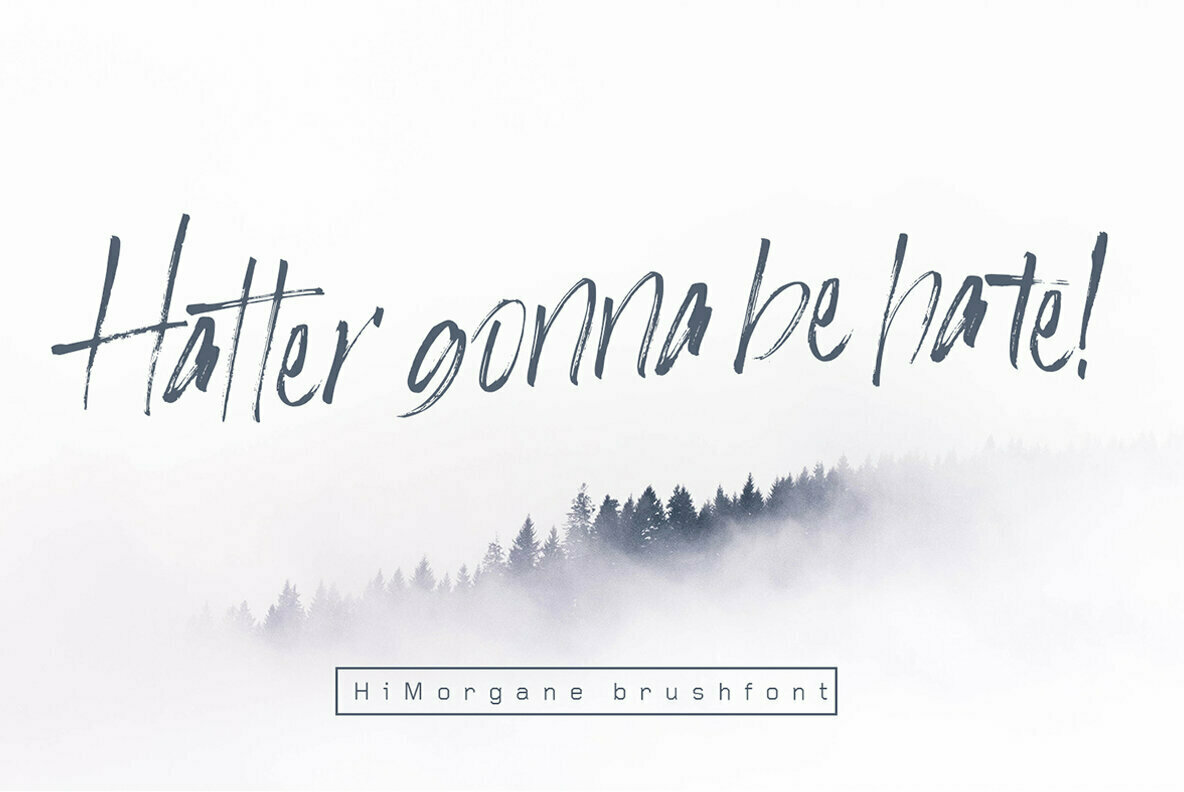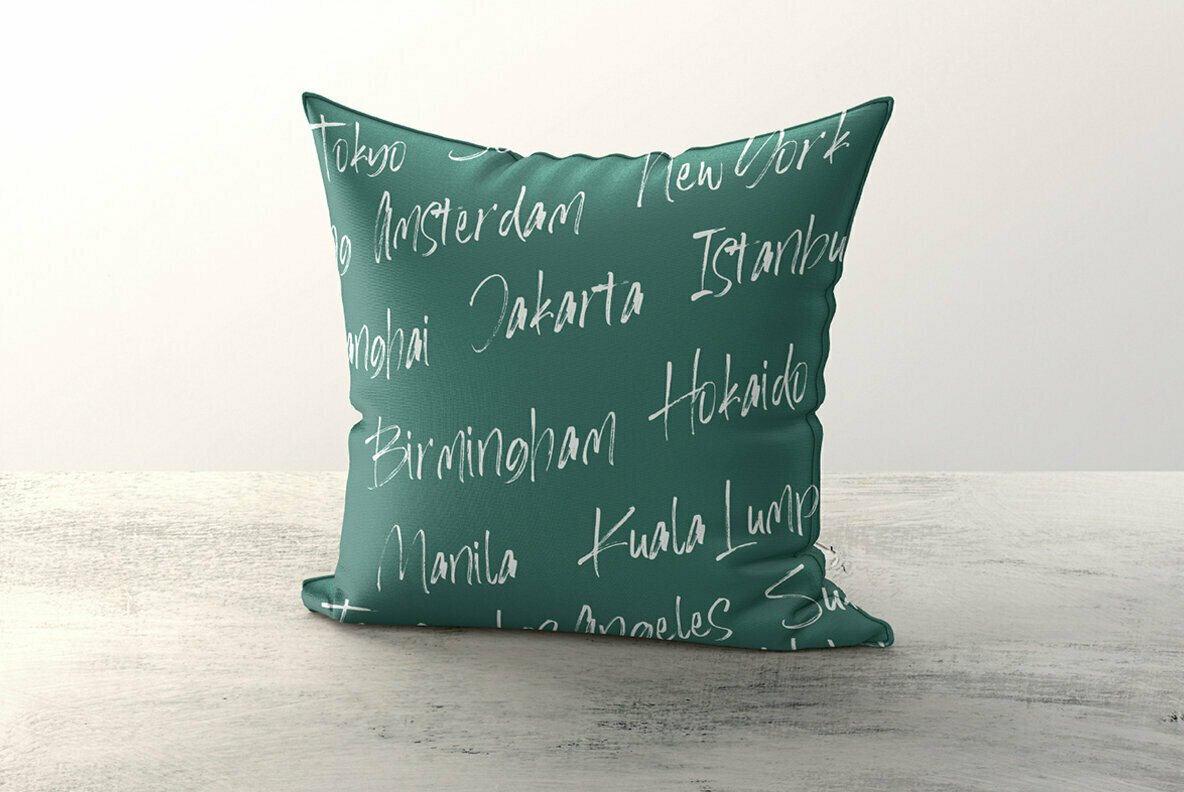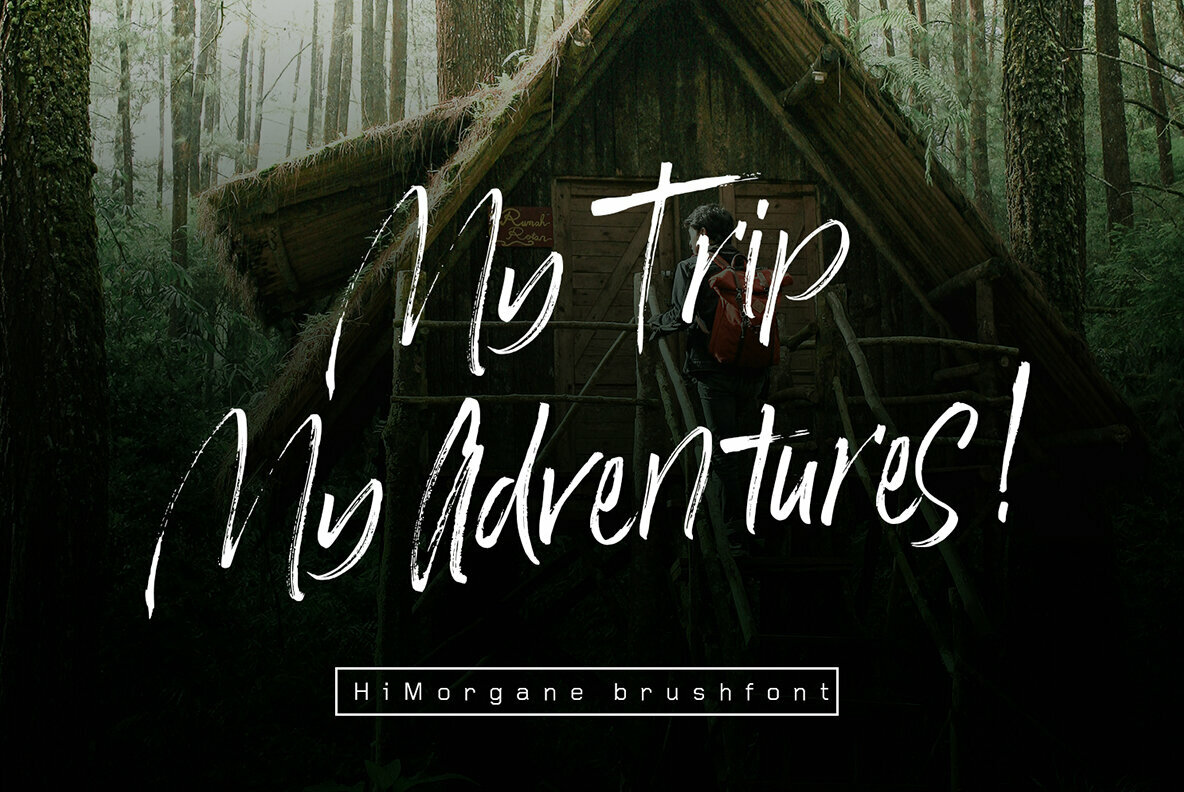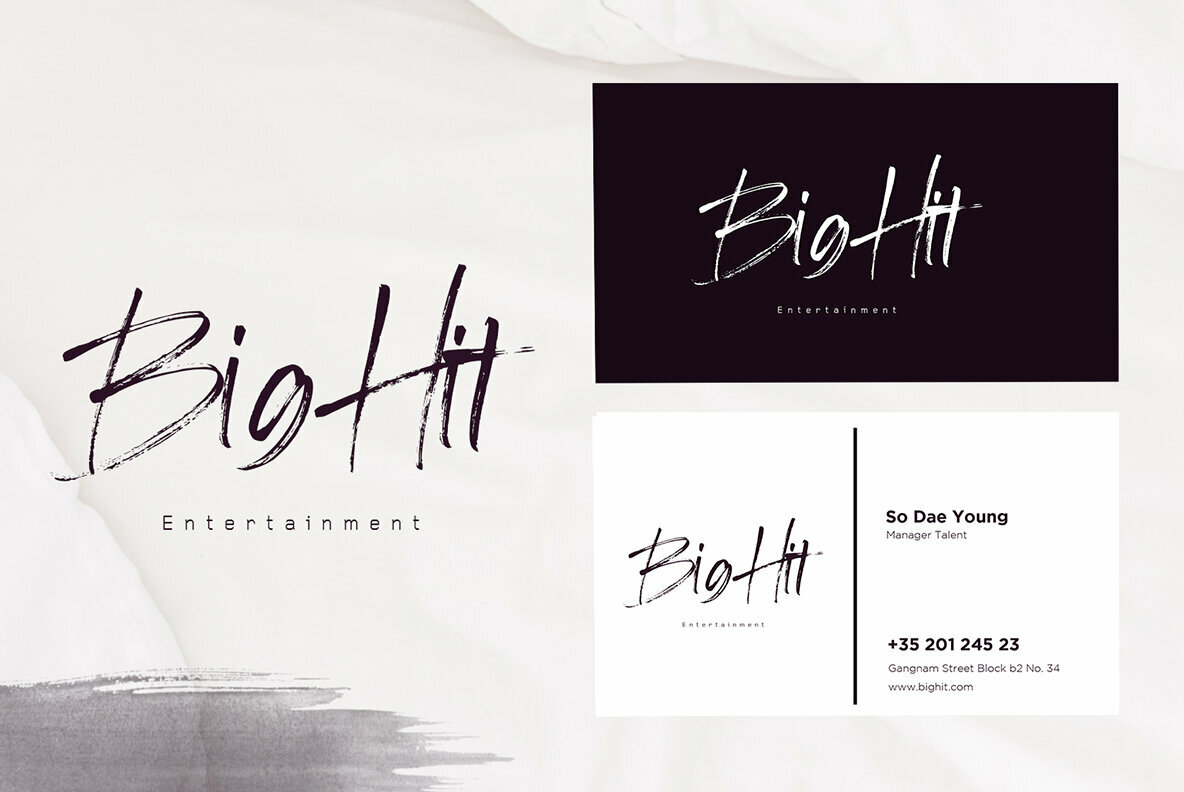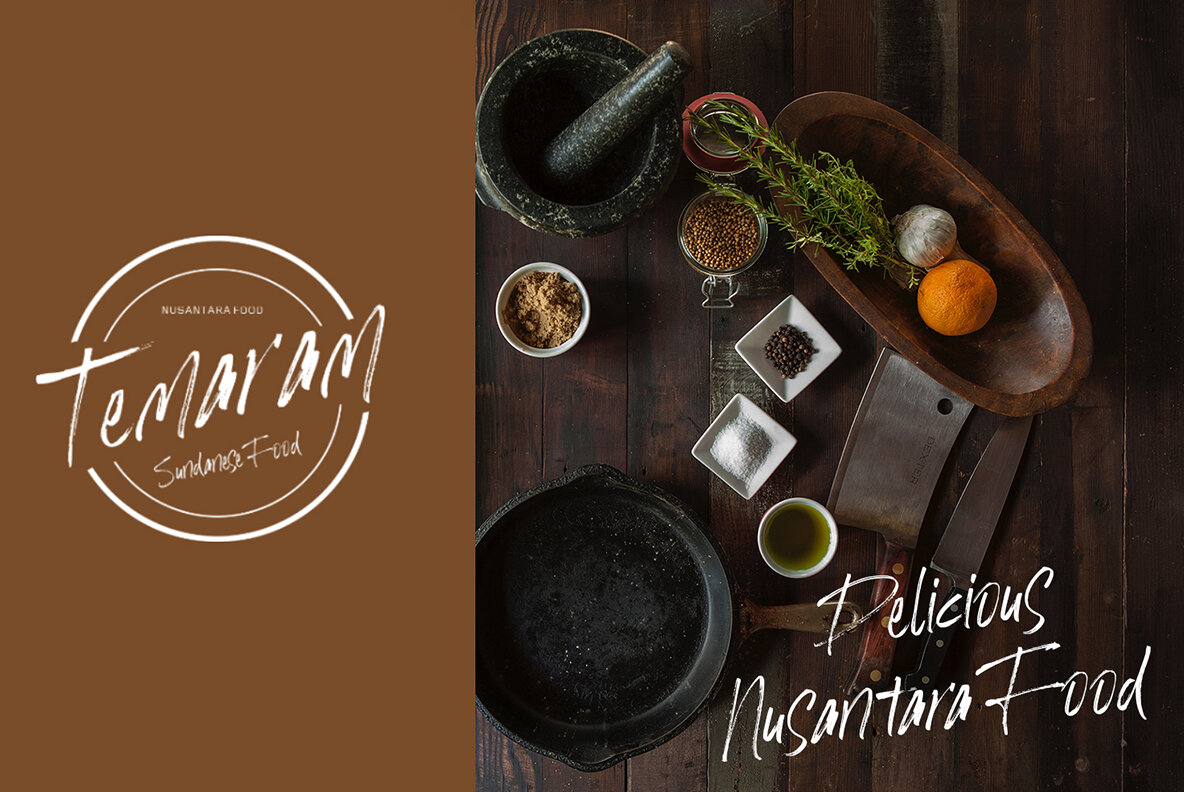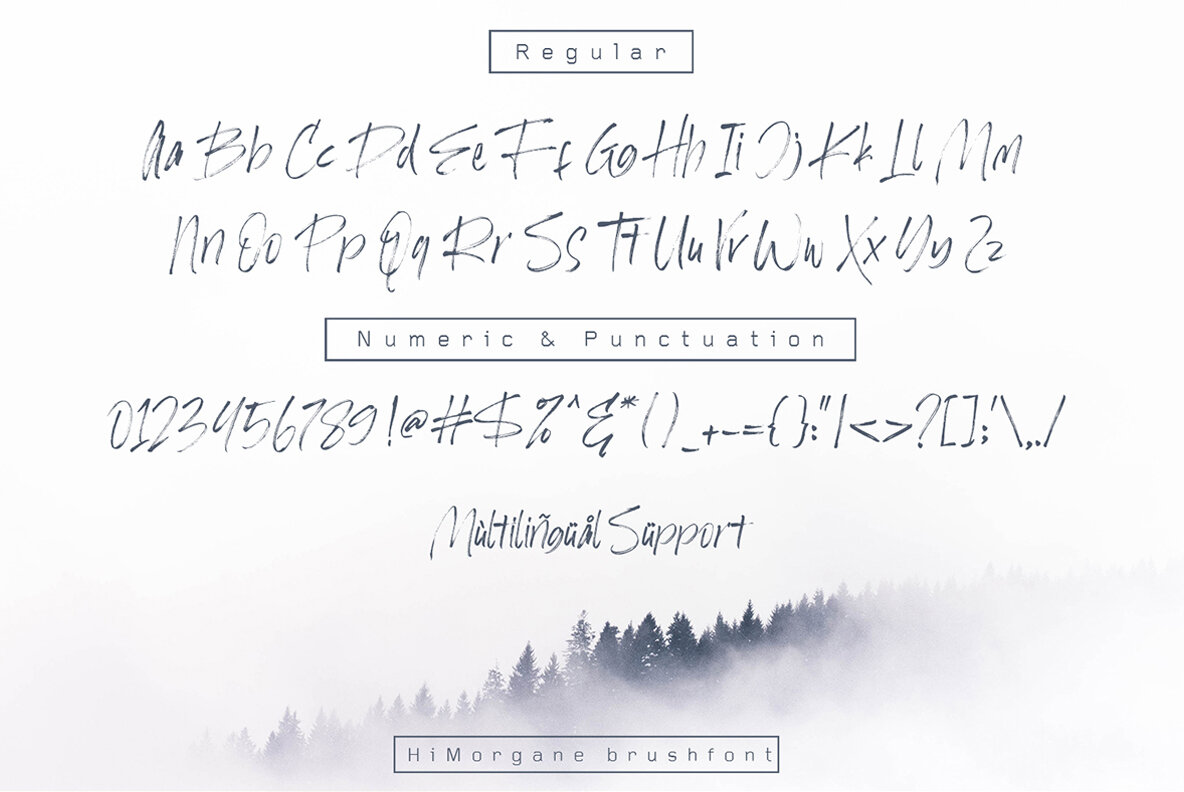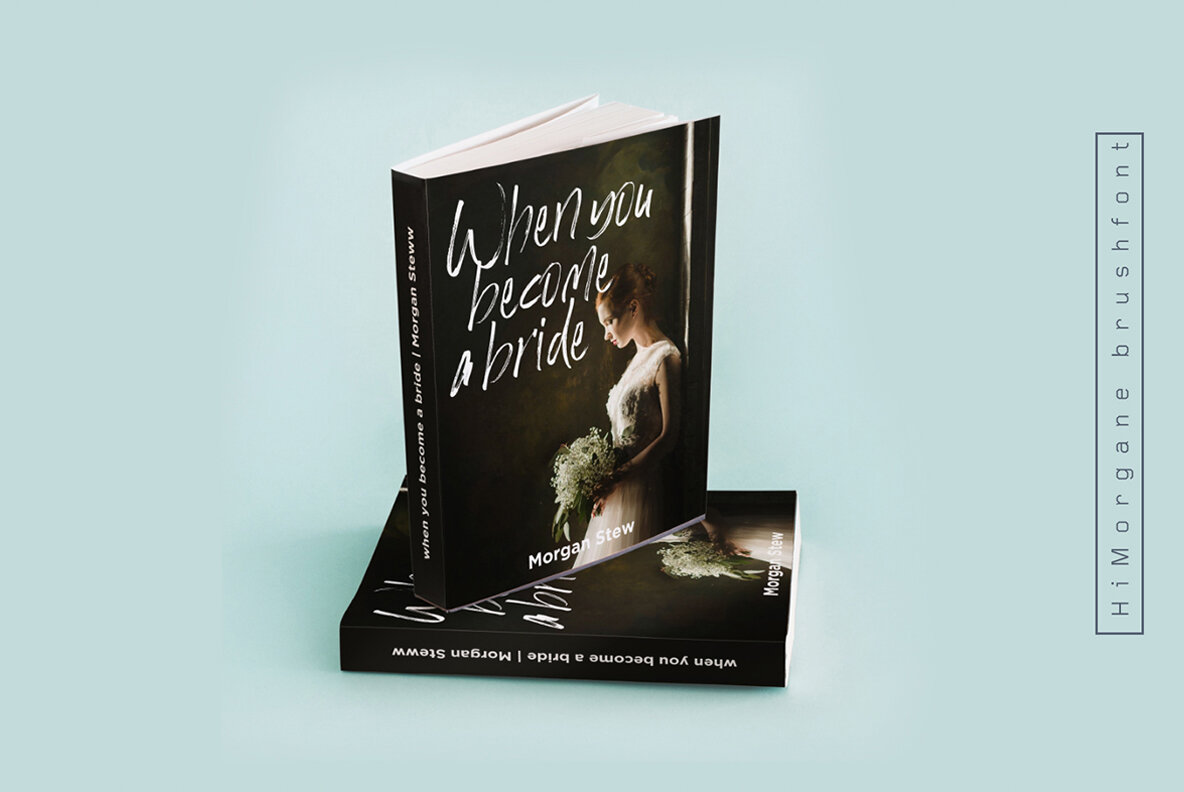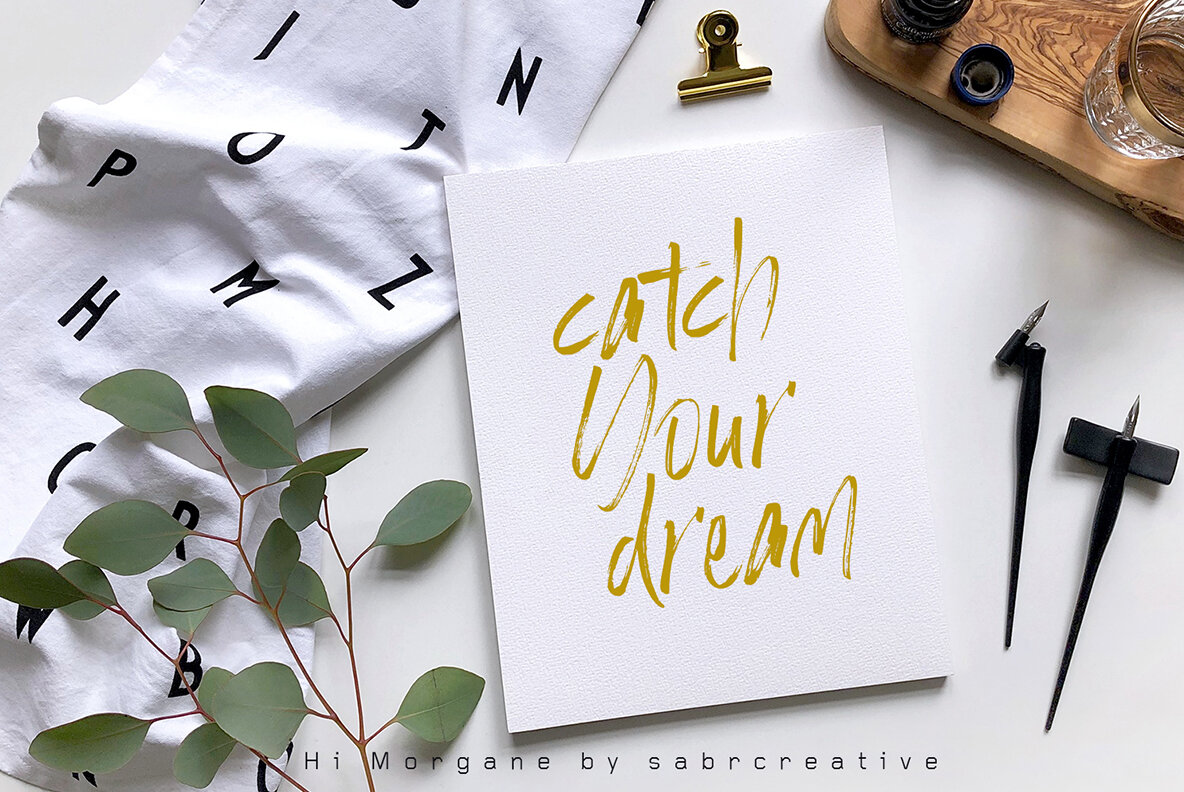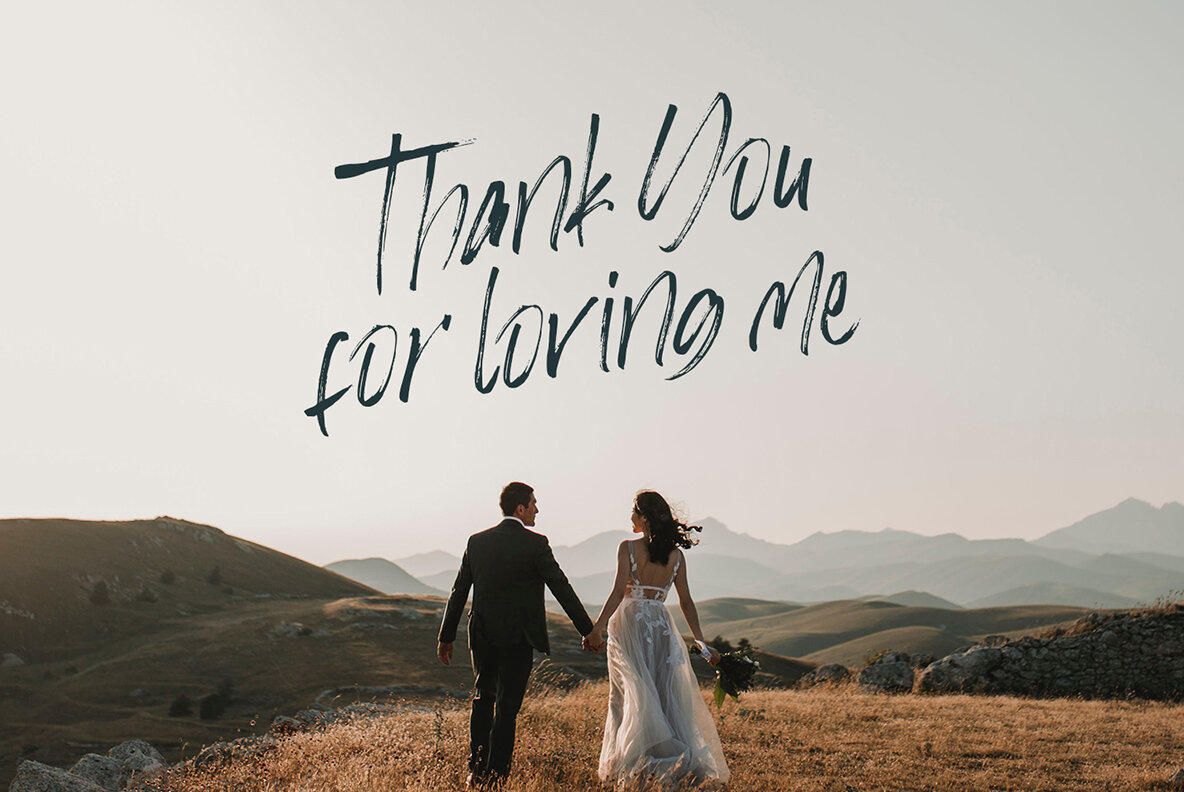
Hi Morgane Font
Hi Morgane
Hi Morgane gleams with authenticity, thanks to its hand brush origins. This font offers a natural and robust character, born from the blend of brushes and paint, imparting an exquisite texture. Ideal for an array of design endeavors, Hi Morgane font seamlessly complements branding materials, t-shirts, and social media templates. Its versatile appeal makes it a suitable choice for business cards, logos, promotional leaflets, posters, and countless other applications.Hi Morgane: A Hand Brush Font with Natural Texture